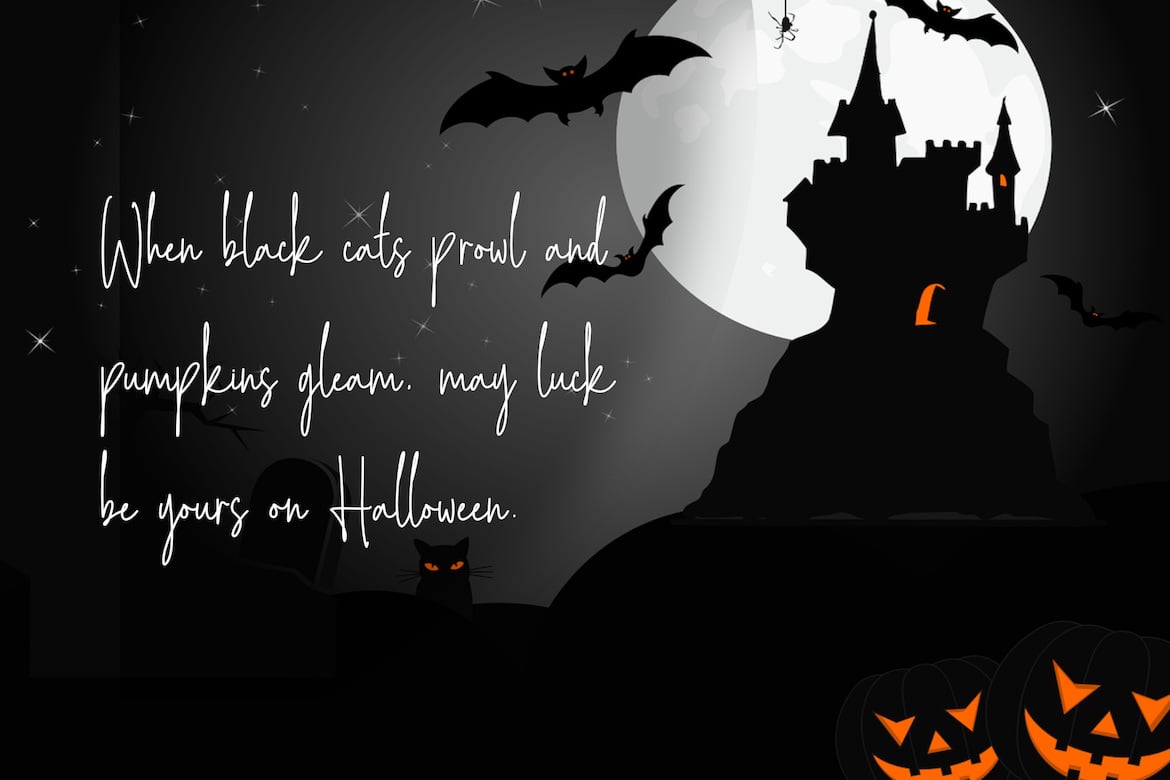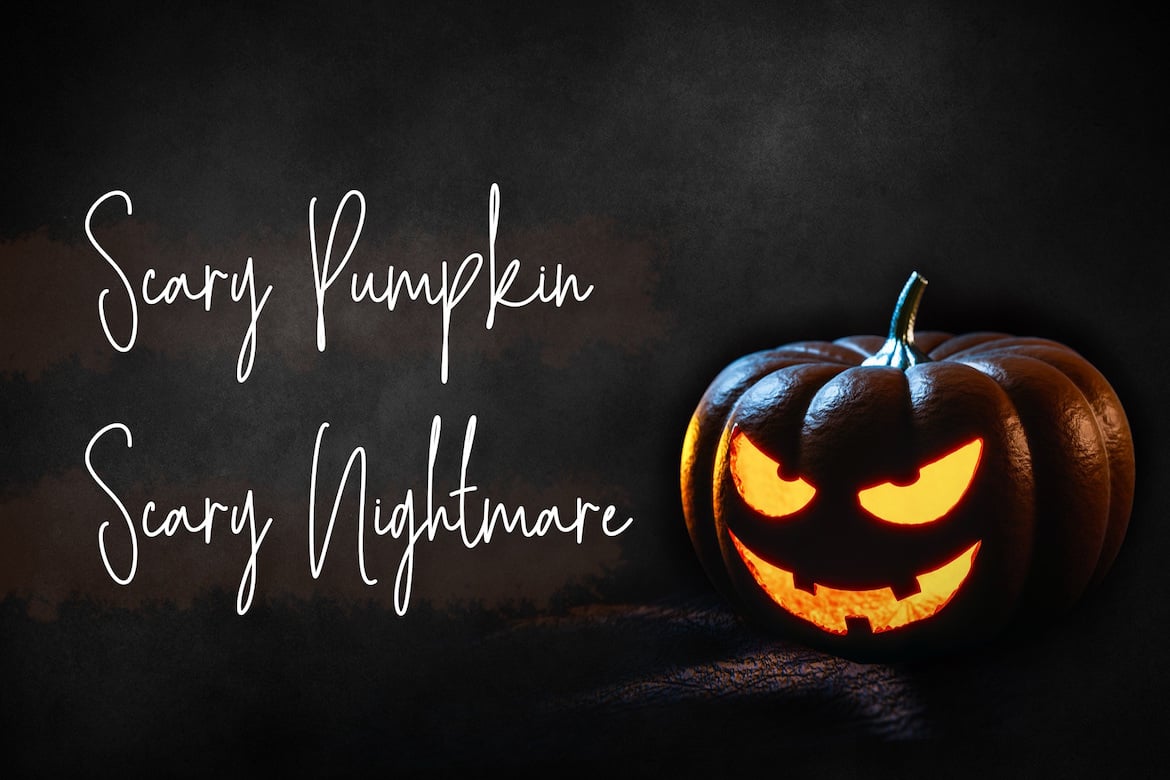
Spooky Mystery – Signature Script Font
Spooky Mystery is a captivating horror-themed script font, ideal for adding a chilling touch to your designs. Perfect for Halloween projects and other eerie creations, this font brings an element of suspense and mystery to any horror-themed design. Make your spooky designs stand out with the haunting allure of Spooky Mystery.